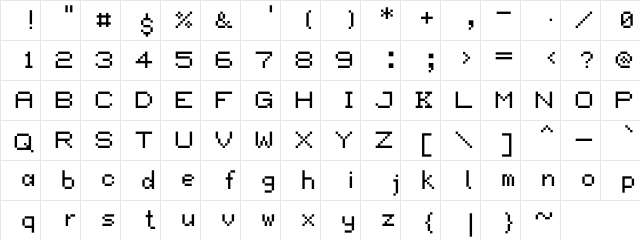
Quitchy Regular
Design Context for Quitchy Typeface
Quitchy takes a measured approach to typography — its balanced proportions and neutral character make it a reliable workhorse for both digital and print work.